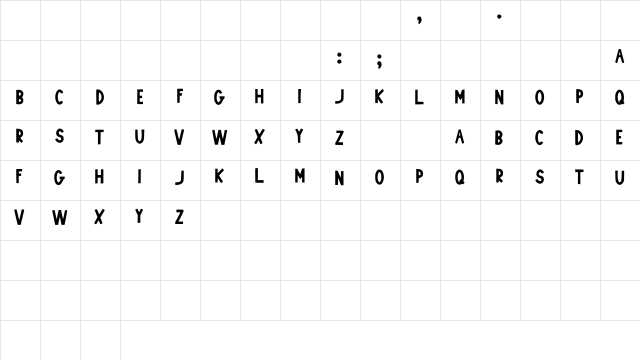
Fonty_McFonterson Medium
Design Context for Fonty_McFonterson Typeface
Fonty_McFonterson offers clean, dependable letterforms without strong stylistic allegiance, making it a practical choice for designers who need flexibility.